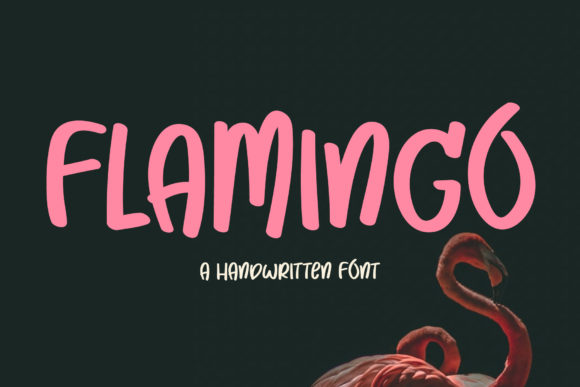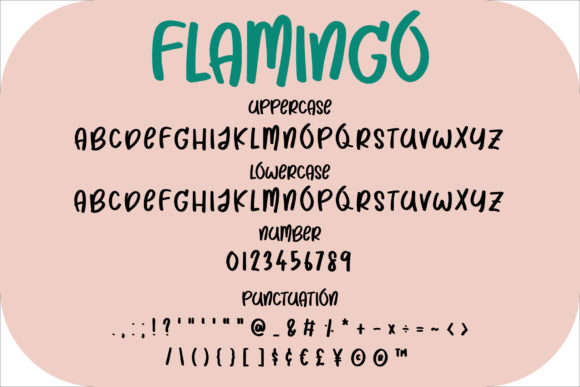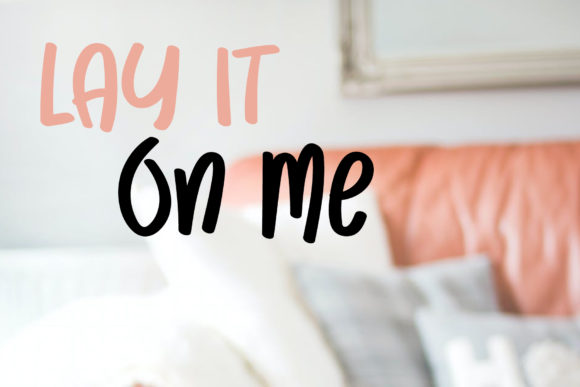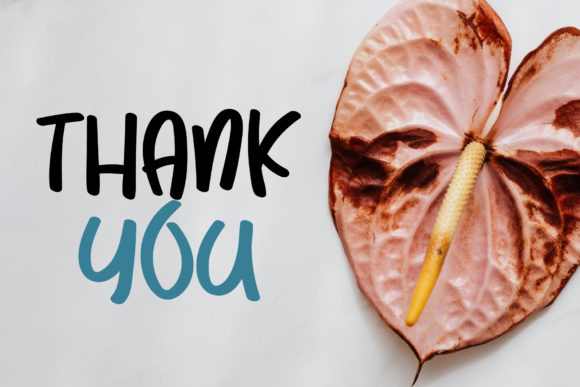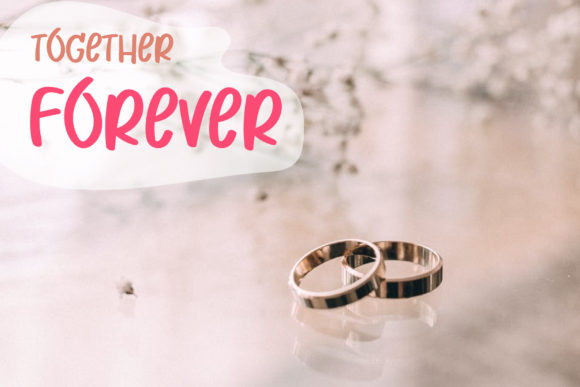
Flamingo Font
About Flamingo Font
Flamingo is a fun and playful handwritten font, joyful and original. Its natural and unique style makes it incredibly fitting to a large pool of designs.